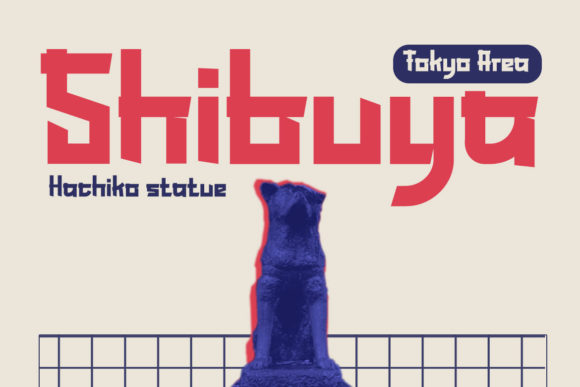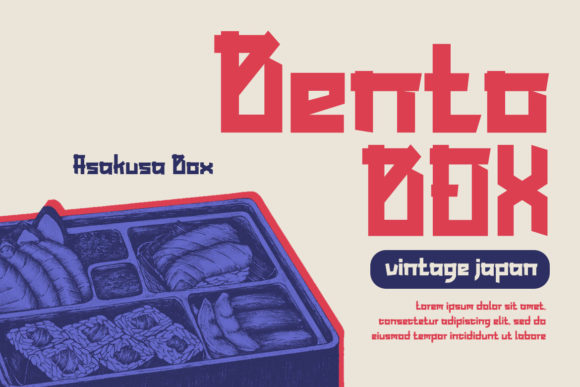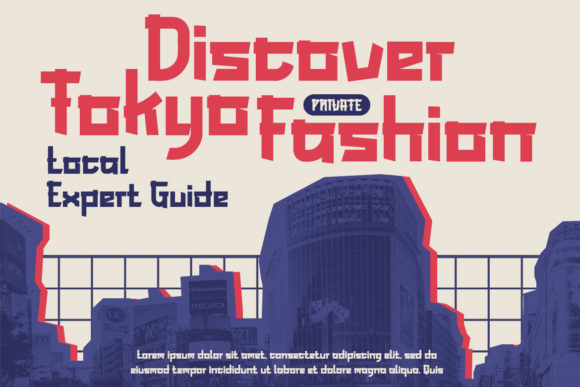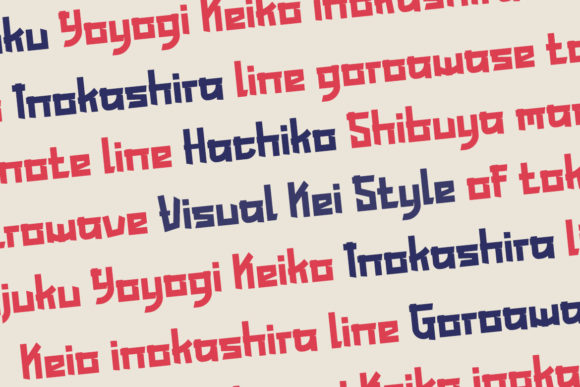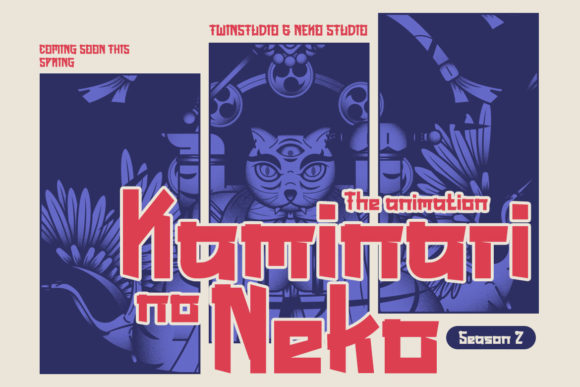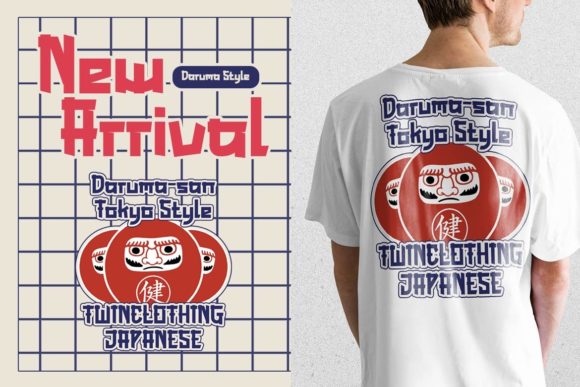
Introduction to Kogama Font
Kogama is an incredibly unique, Japanese inspired display font.
It will look stunning on any food menu, poster, flyer or print Use this font for your designs and explore its endless possibilities.
Key Features of Kogama Font